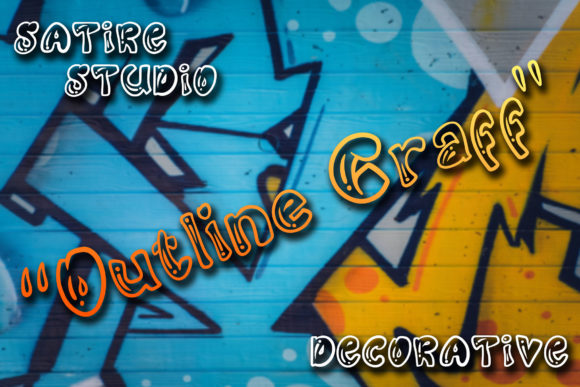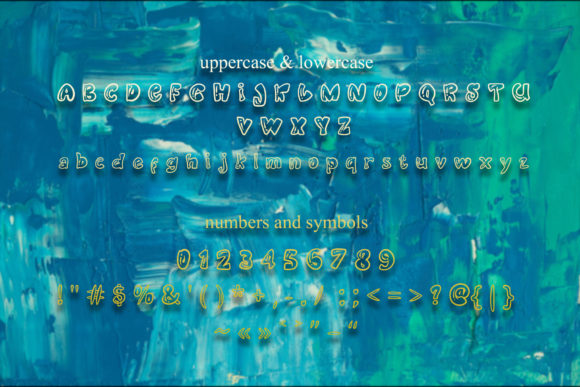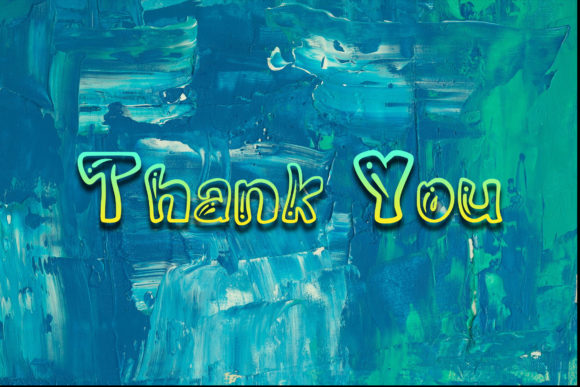
Introduction to Outline Graff Font
Outline Graff is a decorative font.
It looks beautiful on invitations like greeting cards, branding materials, business cards, quotes, posters, and more .